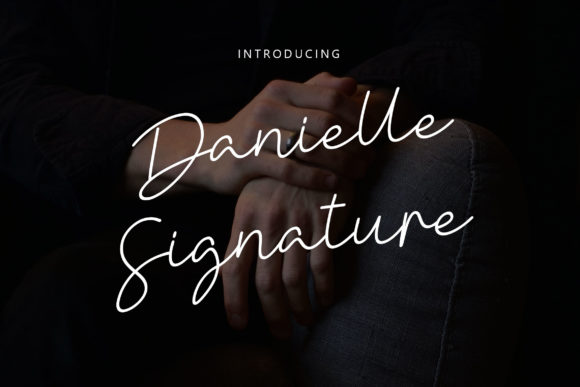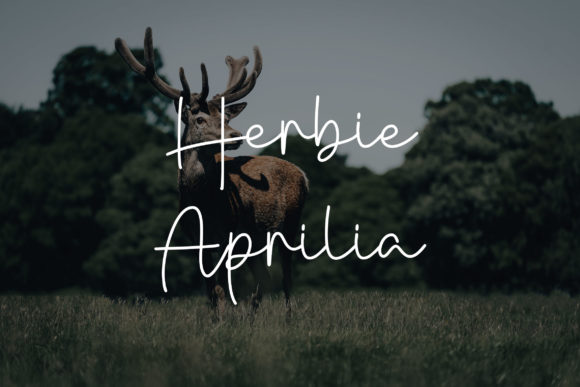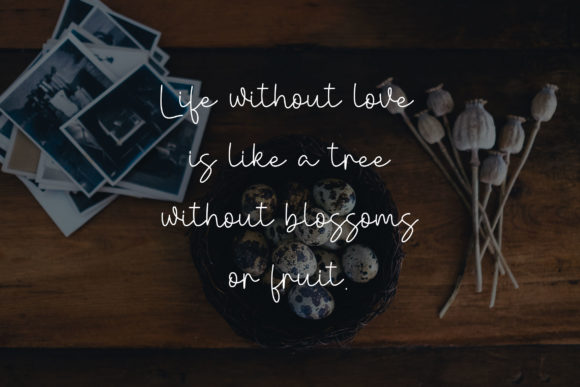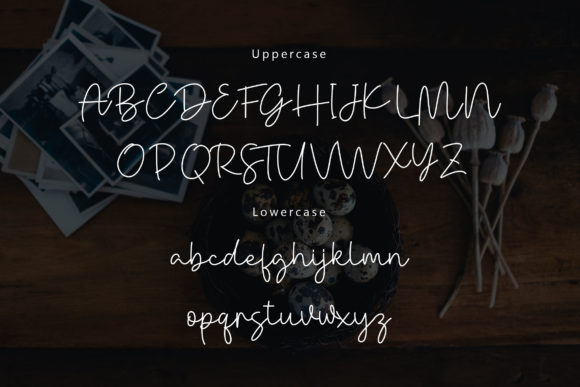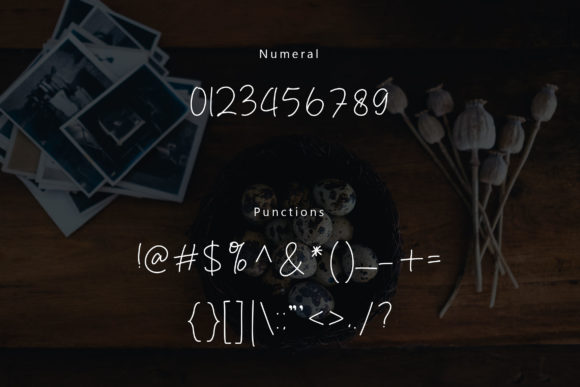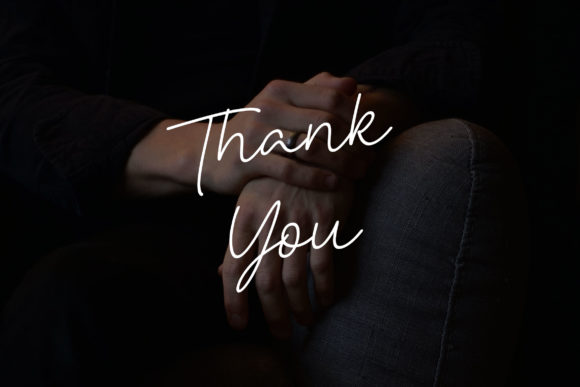
Danielle Signature Font
About Danielle Signature Font
Danielle Signature feels elegant and modern. This amazing script font will add a luxurious touch to your upcoming projects. Use it for logos, magazines, branding, signatures, and more!